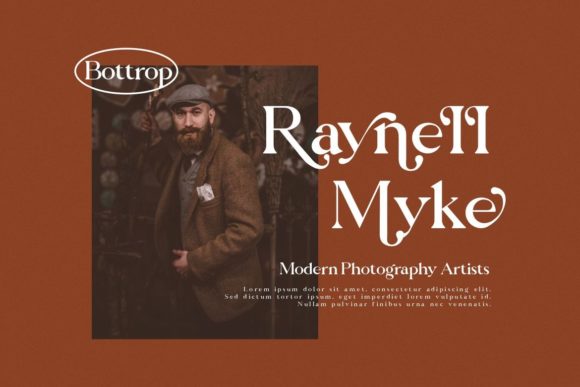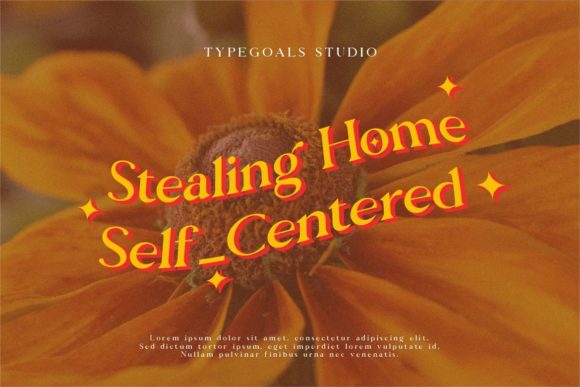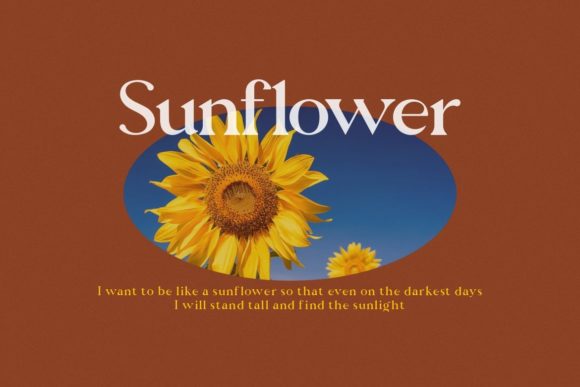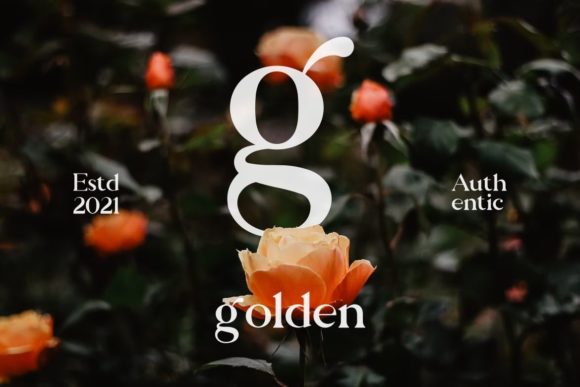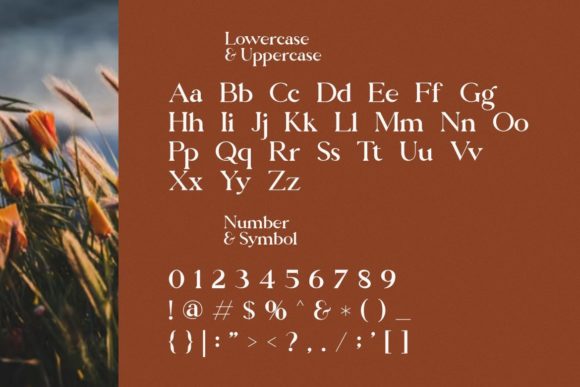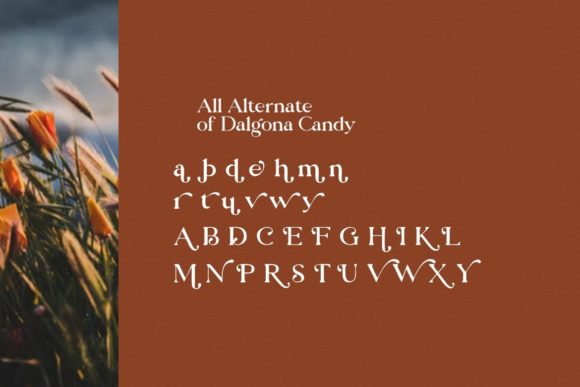
Dalgona Candy Font: Elevate Your Designs with Elegance and Versatility
In the world of typography, fonts play a crucial role in making or breaking a design. A stylish and elegant font can instantly elevate your project, making it stand out from the crowd. If you’re a designer, crafter, or simply someone who loves to dabble in creative projects, you’re in for a treat. Introducing the Dalgona Candy Font, a stunning serif font that is sure to capture your heart.
What Makes Dalgona Candy Font So Special?
Dalgona Candy is a stylish and elegant serif font that exudes sophistication and charm. Its classic design makes it perfect for a wide range of projects, from wedding invitations and branding materials to packaging and digital media. What sets it apart, however, is its PUA (Private Use Area) encoding. This means that you can access all of the glyphs and swashes with ease, giving you unparalleled creative control.
Key Features of Dalgona Candy Font
- PUA Encoded: With PUA encoding, you can access a vast array of glyphs and swashes, allowing you to create unique and intricate designs.
- Serif Elegance: Dalgona Candy boasts a classic serif design that adds a touch of sophistication to any project.
- Versatility: Whether you’re working on a wedding invitation, a brand logo, or a digital graphic, Dalgona Candy’s versatile style ensures it will fit right in.
- Ease of Use: Thanks to its PUA encoding, using Dalgona Candy is straightforward. Simply access the glyphs and swashes through your design software and get creative!
How to Use Dalgona Candy Font in Your Projects
One of the best things about Dalgona Candy is its adaptability. Here are a few ideas to get you started:
- Wedding Invitations: Create stunning wedding invitations that set the tone for a beautiful and elegant celebration.
- Branding and Logos: Use Dalgona Candy to develop a brand identity that exudes class and sophistication.
- Packaging: Elevate your product packaging with a font that stands out and captures attention.
- Digital Media: From social media graphics to website headers, Dalgona Candy can add a touch of elegance to your digital projects.
Why Designers and Crafters Love Dalgona Candy Font
Designers and crafters are always on the lookout for fonts that can help them create stunning and unique designs. Dalgona Candy has quickly become a favorite among creatives for several reasons:
- Unique Style: Its elegant serif design and extensive glyph library make it a one-of-a-kind font that can help you stand out.
- Time-Saving: With PUA encoding, you can access all the glyphs and swashes without having to manually create them, saving you time and effort.
- Cross-Platform Compatibility: Dalgona Candy works seamlessly across various design software, ensuring a smooth workflow.
Dalgona Candy Font is more than just a stylish and elegant serif font; it’s a tool that can transform your designs and take them to the next level. With its PUA encoding, versatile style, and ease of use, it’s an excellent choice for designers and crafters looking to create spectacular designs. Whether you’re working on a wedding invitation, a brand logo, or a digital graphic, Dalgona Candy is sure to impress. So why wait? Fall in love with Dalgona Candy’s incredibly versatile style and start creating stunning designs today!
- Dalgona Candy is a stylish and elegant serif font perfect for various design projects.
- PUA encoded for easy access to glyphs and swashes.
- Extremely versatile and suitable for wedding invitations, branding, packaging, and digital media.
- Easy to use and compatible with various design software.